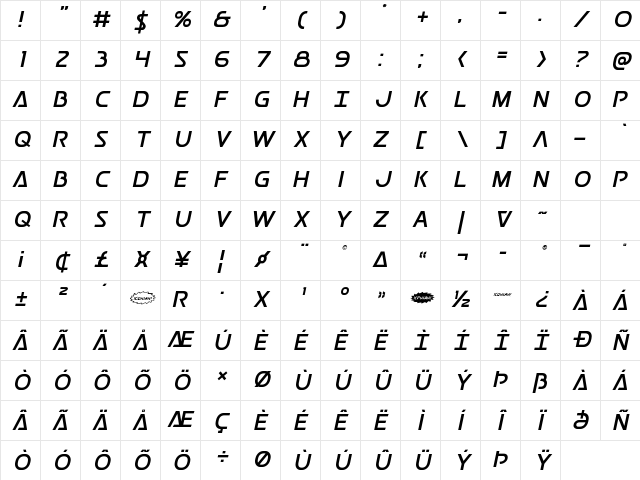
Postmaster Regular Free Font
Postmaster Regular
Postmaster Family
Design Context for Postmaster
Postmaster is a composed and adaptable typeface that performs quietly and consistently across a wide range of design contexts.